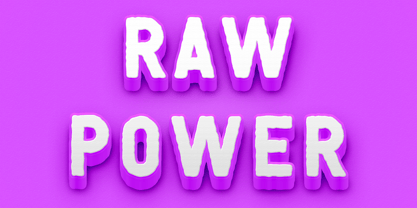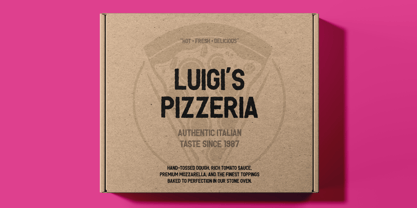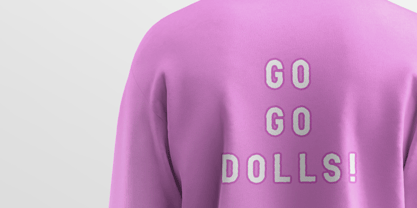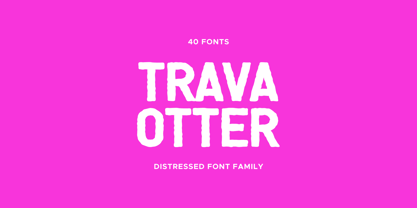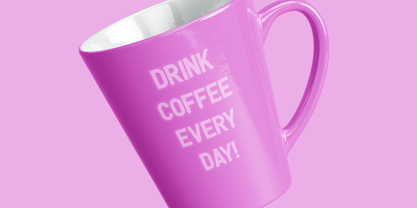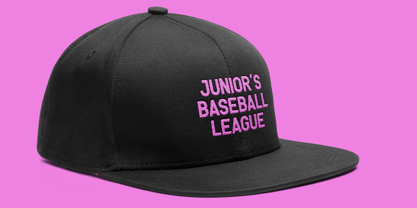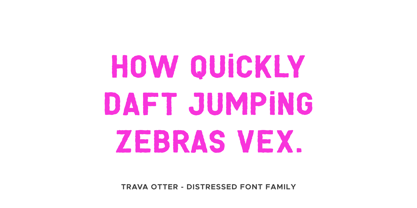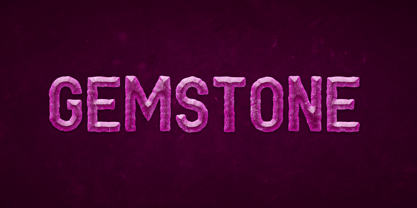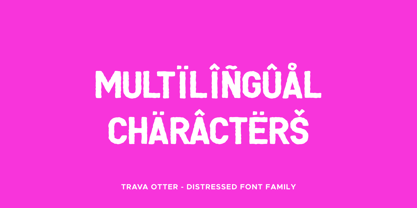
Trava Otter is a distressed eroded sans serif with grunge textures and rough edges, ideal for posters, horror themes, branding, gaming, and display design.
The texture of Trava Otter simulates ink erosion, rust, scratches, and weathered surfaces, creating an atmospheric style ideal for posters, album covers, packaging, branding, horror themes, gaming graphics, and experimental editorial layouts. Each letterform feels alive with irregular edges and distressed contours, giving designs a raw, handcrafted character.
This typeface family includes a wide range of stylistic variations to support different visual moods. The family features multiple texture styles such as Brush, Cut, Eroded, Grit, Ink, Rough, Rust, Scratch, and Worn. Each style also includes matching Italic and Outline versions, allowing designers to layer, combine, and create bold typographic compositions.
With a large multilingual character set supporting 89 languages, Trava Otter is suitable for international projects while maintaining its distinctive eroded personality. The typeface performs beautifully at large display sizes where the distressed details can shine, while still retaining character in smaller applications.